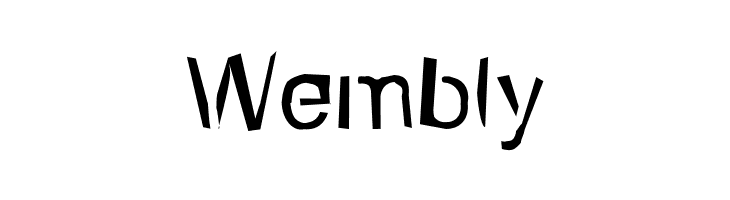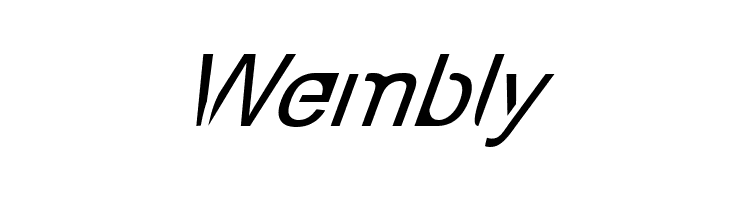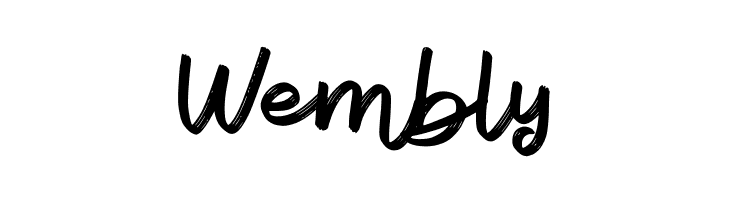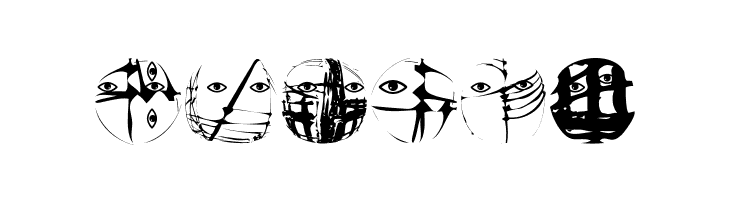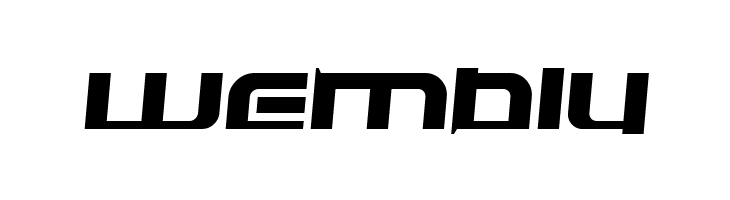
An artistic font with characters resembling abstract faces in circular shapes.
A futuristic, geometric font with bold, angular letterforms.
A futuristic, oblique font with bold, geometric characters.
A modern, geometric font with clean lines and a versatile style.
A modern, italicized font with medium contrast and a dynamic style.
A bold, rugged font with a distressed, hand-crafted appearance.
A decorative font with feather-like elements and bold outlines, ideal for creative projects.
A playful, cartoonish font with characters integrated into dynamic illustrations.
A whimsical and decorative font with imaginative, creature-inspired designs.
A sophisticated serif font with high contrast and elegant serifs.
A playful, face-themed decorative font with bold geometric shapes.
Abstract faces with geometric shapes, not a traditional font.
A decorative font with intricate swirls and embellishments, perfect for creative projects.
A bold, geometric font with a modern, monospaced appearance.
A bold, geometric sans-serif font with uniform strokes and a modern look.
An elegant script font with flowing, cursive letters and a classic style.
Education-themed dingbat font with detailed school-related illustrations.
A modern dot matrix font with a digital, technological aesthetic.
A bold, angular font with sharp, geometric shapes and dynamic energy.
A bold, outlined font with a modern and geometric style.
A decorative font with dragon-themed uppercase letters and bold, gothic-inspired characters.
A playful font with egg-shaped faces displaying various expressions.
Abstract, pill-shaped design with bold black and white patterns.
A bold, playful font with characters enclosed in oval shapes, ideal for decorative use.
A bold serif font enclosed in ovals, offering a decorative and impactful style.
An artistic font with vine-like embellishments and a whimsical, organic style.
A futuristic, dotted font with a digital display aesthetic.
A futuristic, dotted font with a digital and modern aesthetic.
A futuristic, segmented font with a tech-inspired, dynamic design.
A futuristic, dotted font with a slanted, digital style.
A classic serif font with modern elegance and unique hieroglyphic symbols.
Decorative pictogram font inspired by Egyptian hieroglyphs.
Pictorial font inspired by Egyptian hieroglyphs.